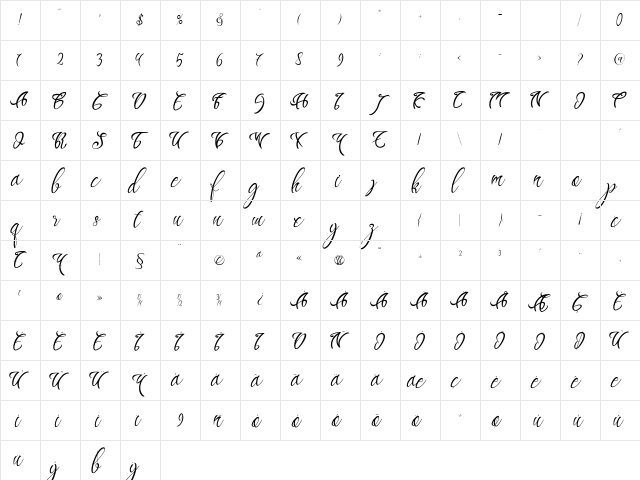
WAFONAK Regular
| Foundry | KHAIRUL |
| Designer | KHAIRUL |
Design Context for WAFONAK Typeface
WAFONAK is a composed and adaptable typeface that performs quietly and consistently across a wide range of design contexts.